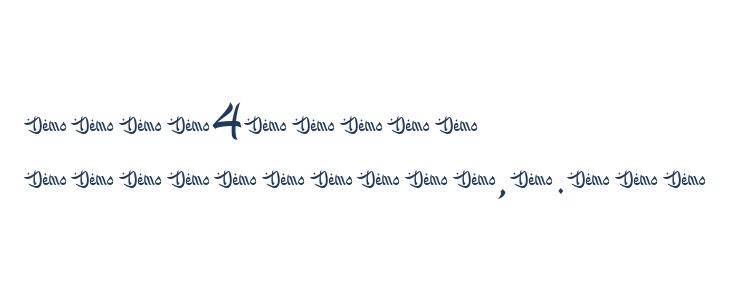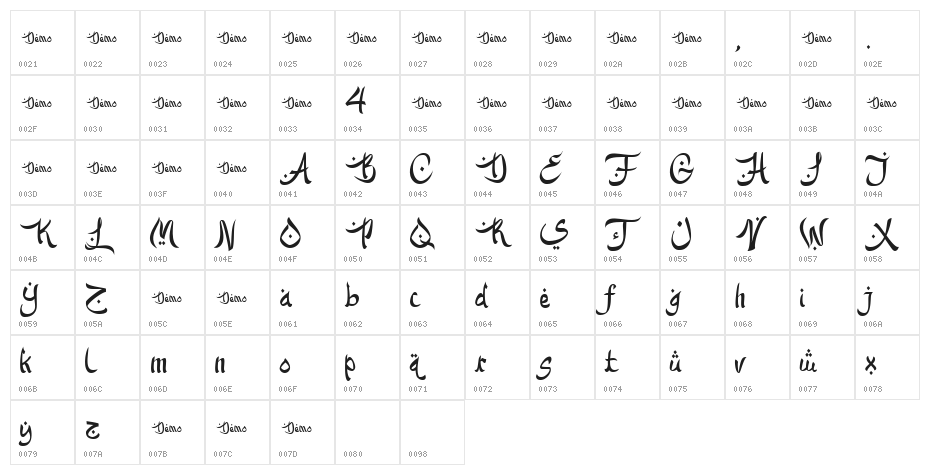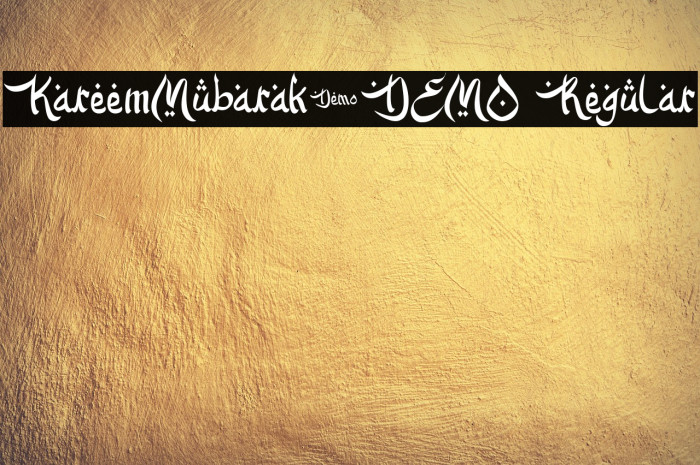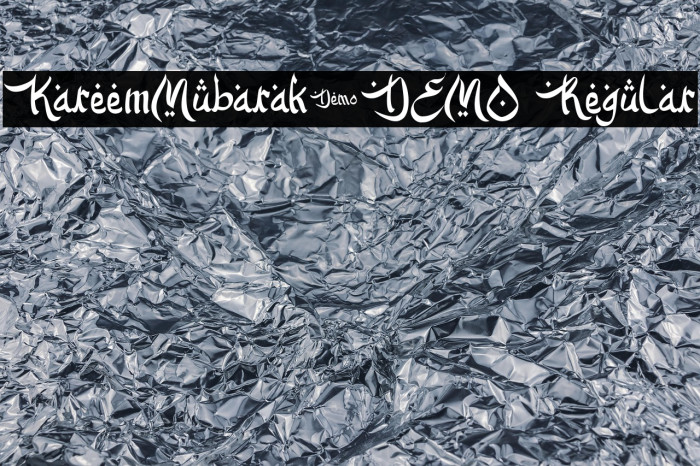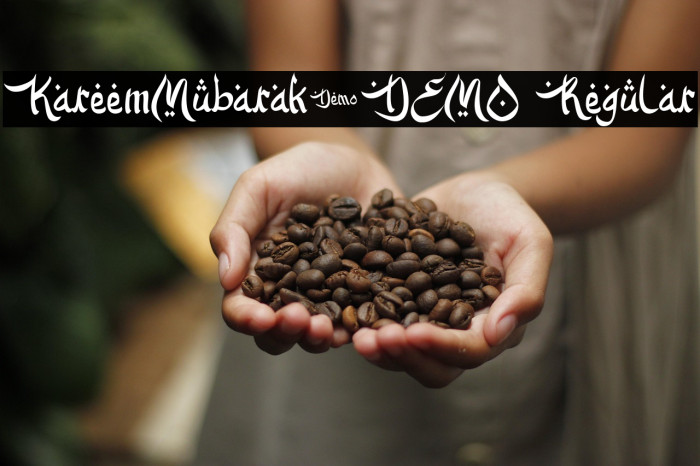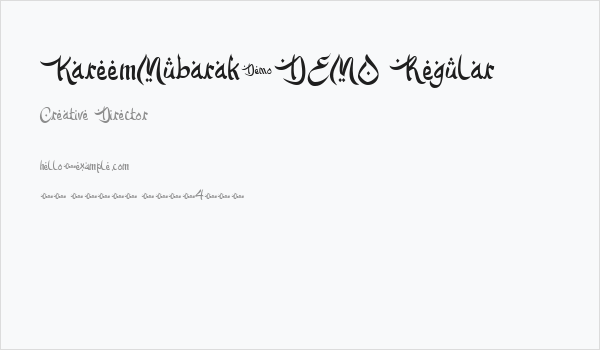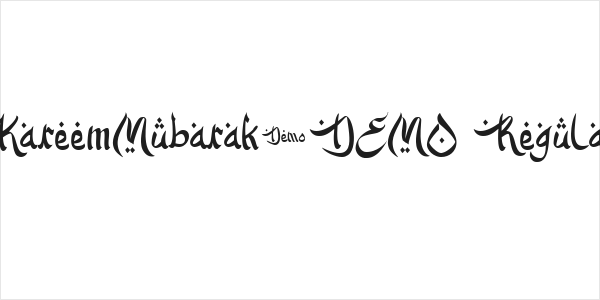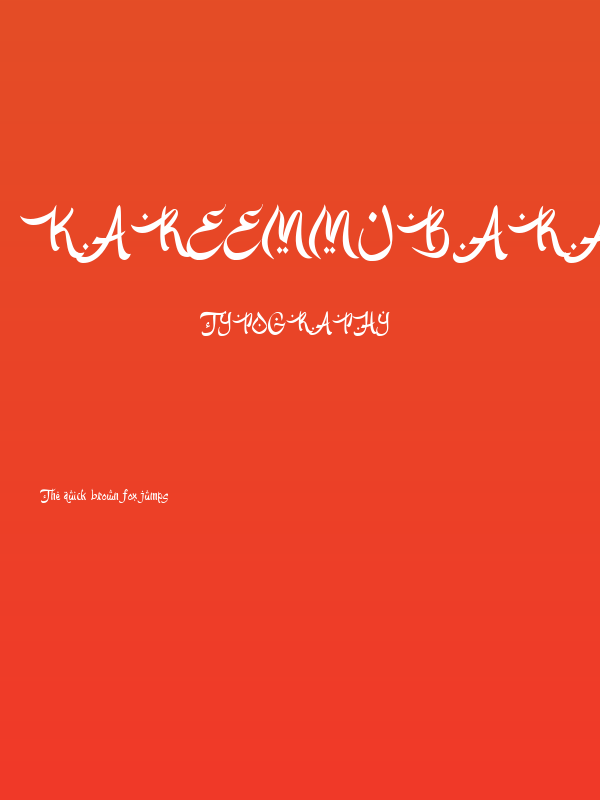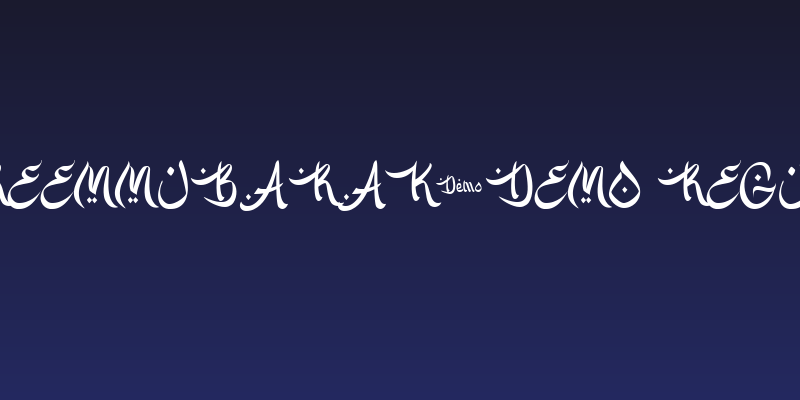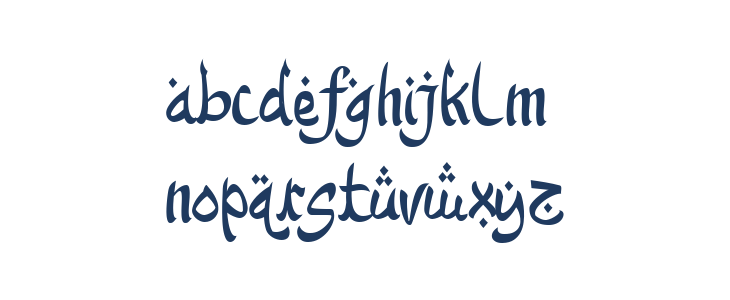
KareemMubarak-DEMO Regular Font
KareemMubarak-DEMO Regular Description
This font features a unique blend of calligraphic and decorative elements, characterized by its flowing, ornate strokes and intricate detailing. The uppercase letters are particularly elaborate, with swirling lines and pointed accents that give them a dynamic and artistic appearance. The lowercase letters maintain a consistent style, with smooth curves and a slightly whimsical touch. The numerals and special characters are equally stylized, fitting seamlessly into the overall aesthetic. This font's distinctiveness makes it ideal for projects that require a touch of elegance and creativity.